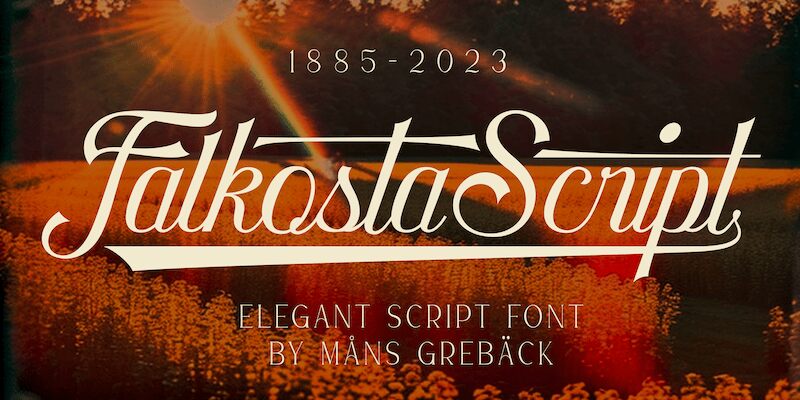
Introducing Falkosta Script, an elegant calligraphy font designed by Mans Greback. This light weight font is perfect for creating stylish invitations, logo designs, and website headers. It's suitable for any project that needs a touch of class and sophistication.
Use underscore _ anywhere in a word to make a swash under the word.
Example: Love_
Write # or after any letter to make a swash version.
Example: Me# & You
Use multiple underscores for longer swashes.
Example: Superman_______